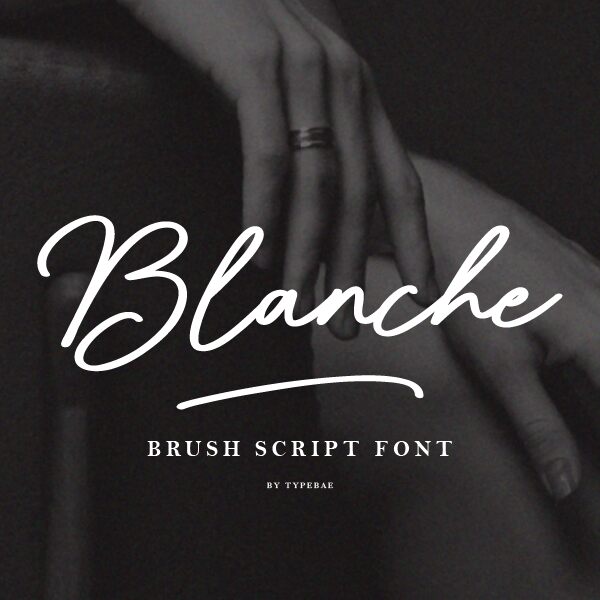
Blanche
Blanche font by Typebae Foundry is a light handwritten font with an elegant and flowing style. It has a script-like design that reflects a modern aesthetic with expressive and signature-like letters. With its soft yet professional vibe, Blanche can be used as your main or complimentary typeface in many projects.